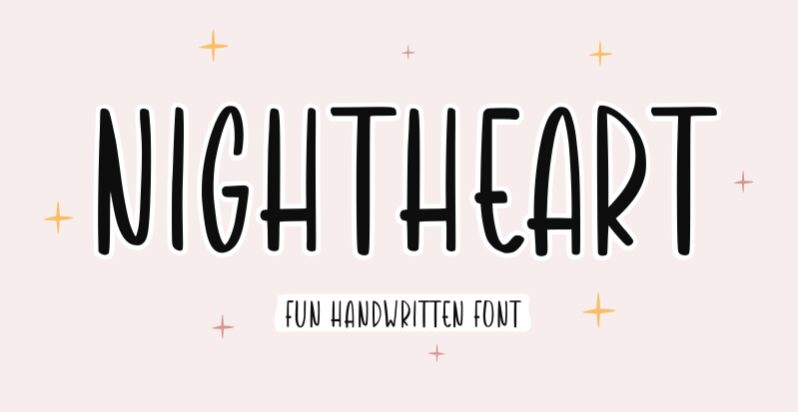
Nightheart
Nightheart is a stylish and versatile semi-light handwritten font designed by Qwrtype Foundry. With its extra-condensed width, it's perfect for projects that require a sleek and modern look, such as fashion editorials, packaging design, or social media graphics. The elegant curves of this font typeface bring a personal touch to any project and make it stand out from the crowd. Whether you're creating a logo or designing invitations, Nightheart is sure to add sophistication and charm to your work. Choose Nightheart for an unforgettable design experience that will leave a lasting impression on your audience.